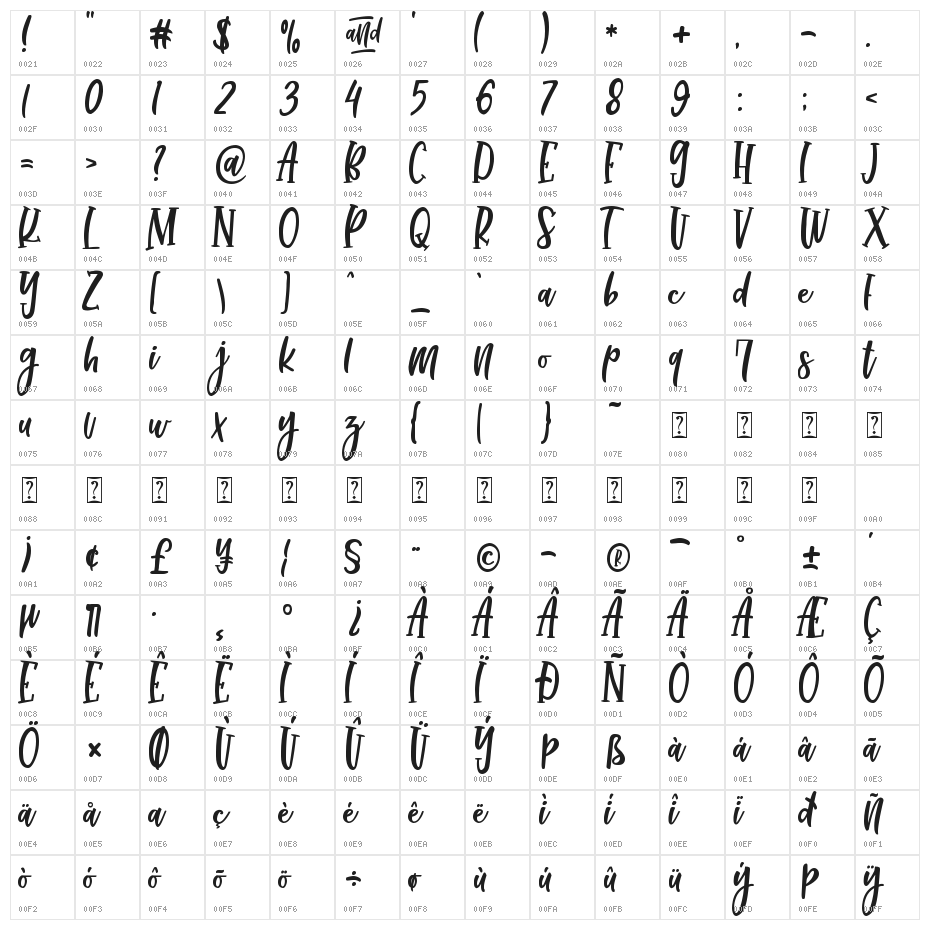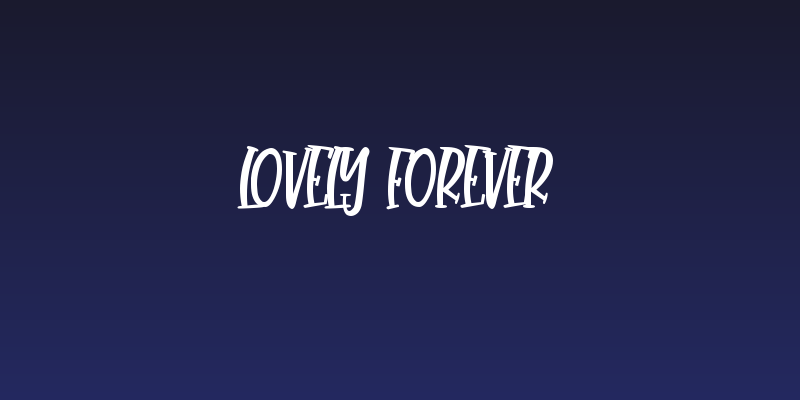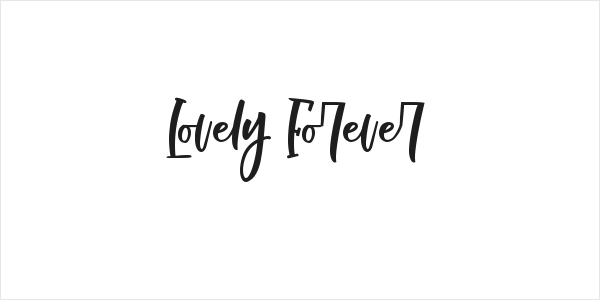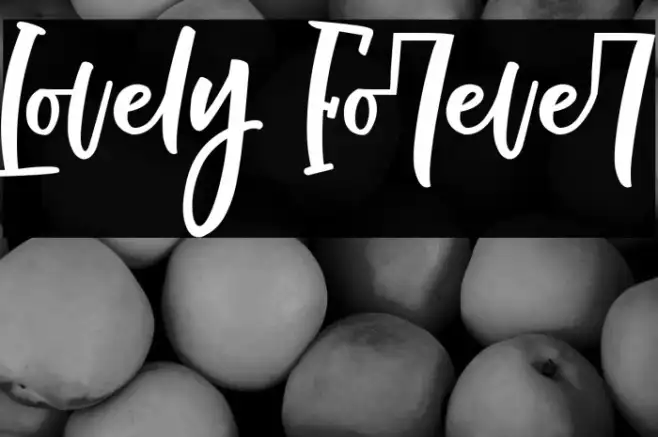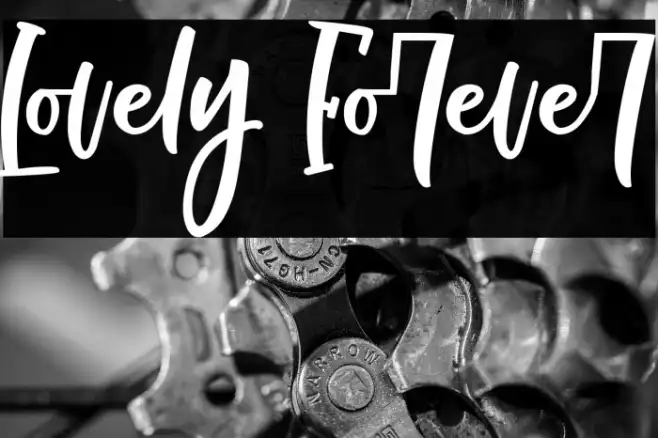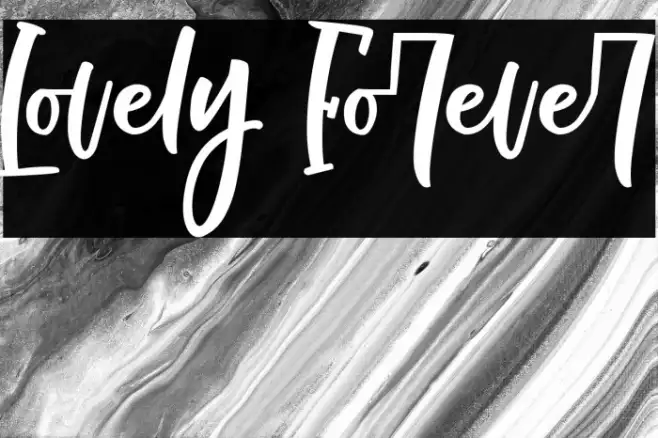
Lovely Forever Font
Lovely Forever Description
This font features a lively and expressive handwritten style, characterized by its bold and flowing letterforms. The uppercase letters have a playful, slightly irregular appearance, adding a sense of movement and energy. The lowercase letters maintain a consistent flow, with smooth curves and a casual, yet elegant feel. Numbers and special characters are designed to match the overall aesthetic, ensuring a cohesive look. The font's dynamic nature makes it ideal for creative and artistic projects, where a personal touch is desired.
| Proposed Projects | Ideal for greeting cards, invitations, posters, and branding projects that require a personal and artistic touch. |